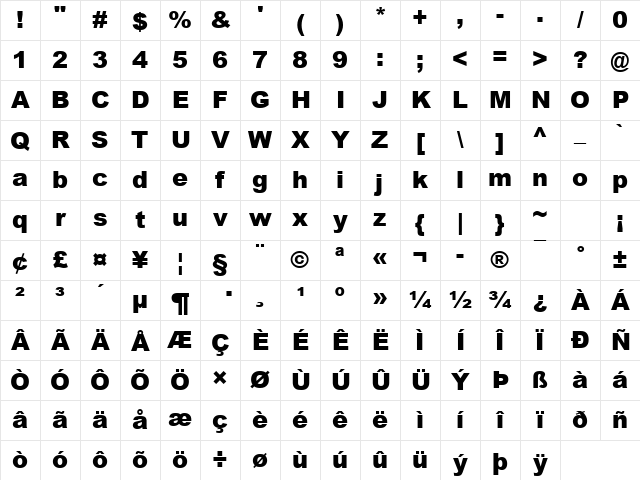
Complete Arial Black Regular glyph index. Displaying only characters natively supported by Arial Black Regular font.
Arial Black is a composed and adaptable typeface that performs quietly and consistently across a wide range of design contexts.